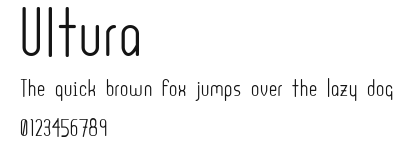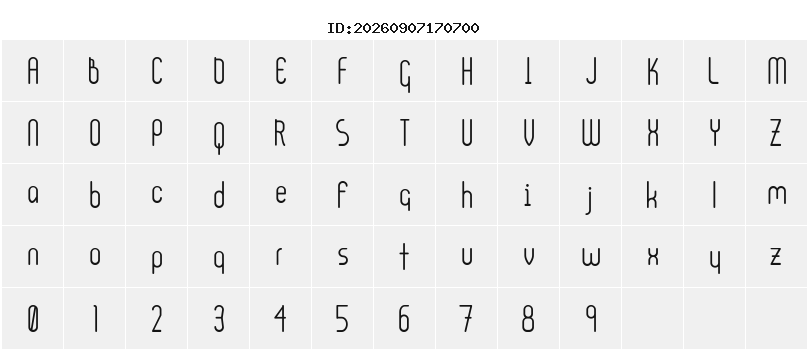
• Font Name: Ultura
• Font Style: Heavy
• Font ID: Macromedia Fontographer 4.1 Ultura Heavy
• Full Font Name: Ultura Heavy
• Version: Macromedia Fontographer 4.1 20/07/02
• PostScript Name: UlturaHeavy
• Copyright: ©1996 Matthew A. Chiavelli [capsule design]
About Ultura.ttf
Ultura.ttf is a modern, elegant sans-serif font designed for ultimate readability and visual harmony. Perfect for branding, headlines, web design, and print materials.